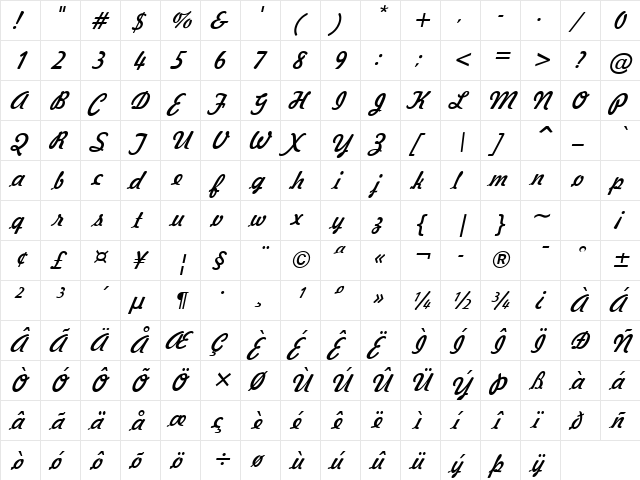
Jott 43 Italic
Design Context for Jott Typeface
Jott is a composed and adaptable typeface that performs quietly and consistently across a wide range of design contexts. Its italic angle brings a sense of urgency and motion to the letterforms.
Pro Tip: Use Jott for emphasis, pull quotes, and subheadings where its slanted energy can add rhythm to the layout.